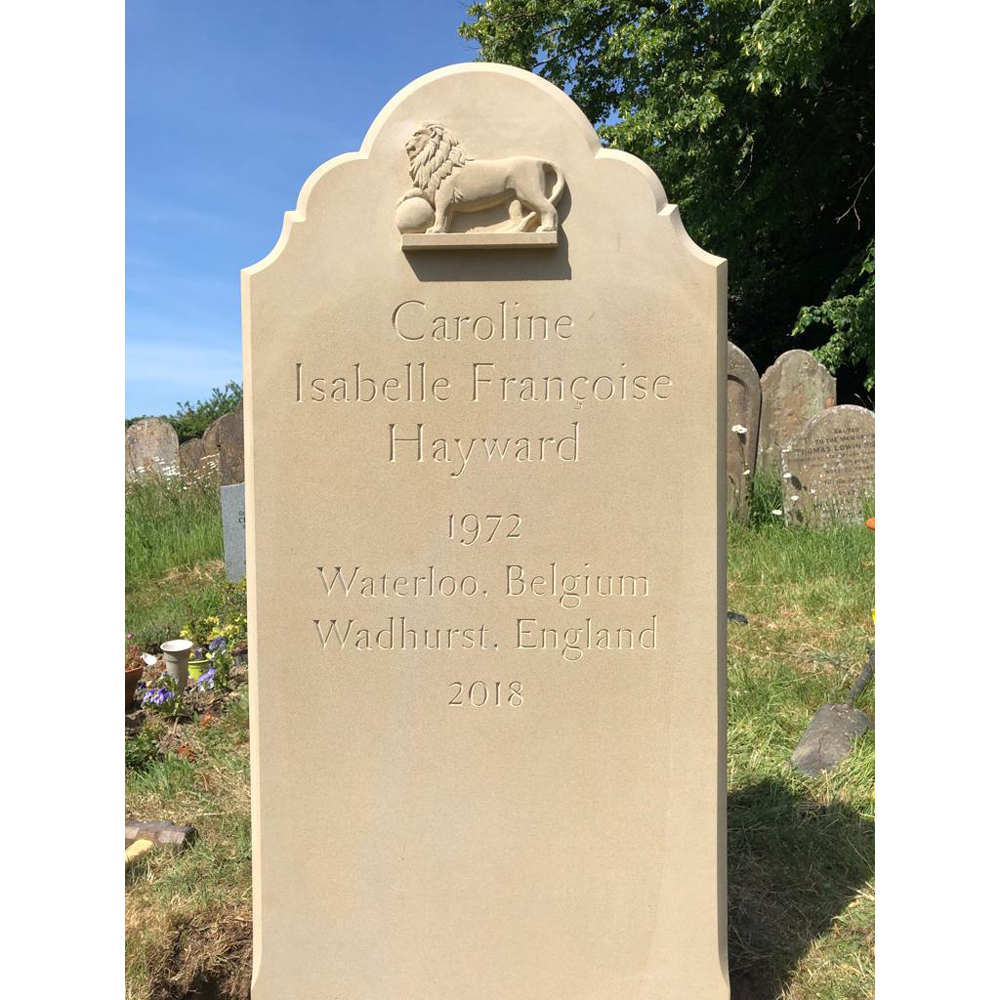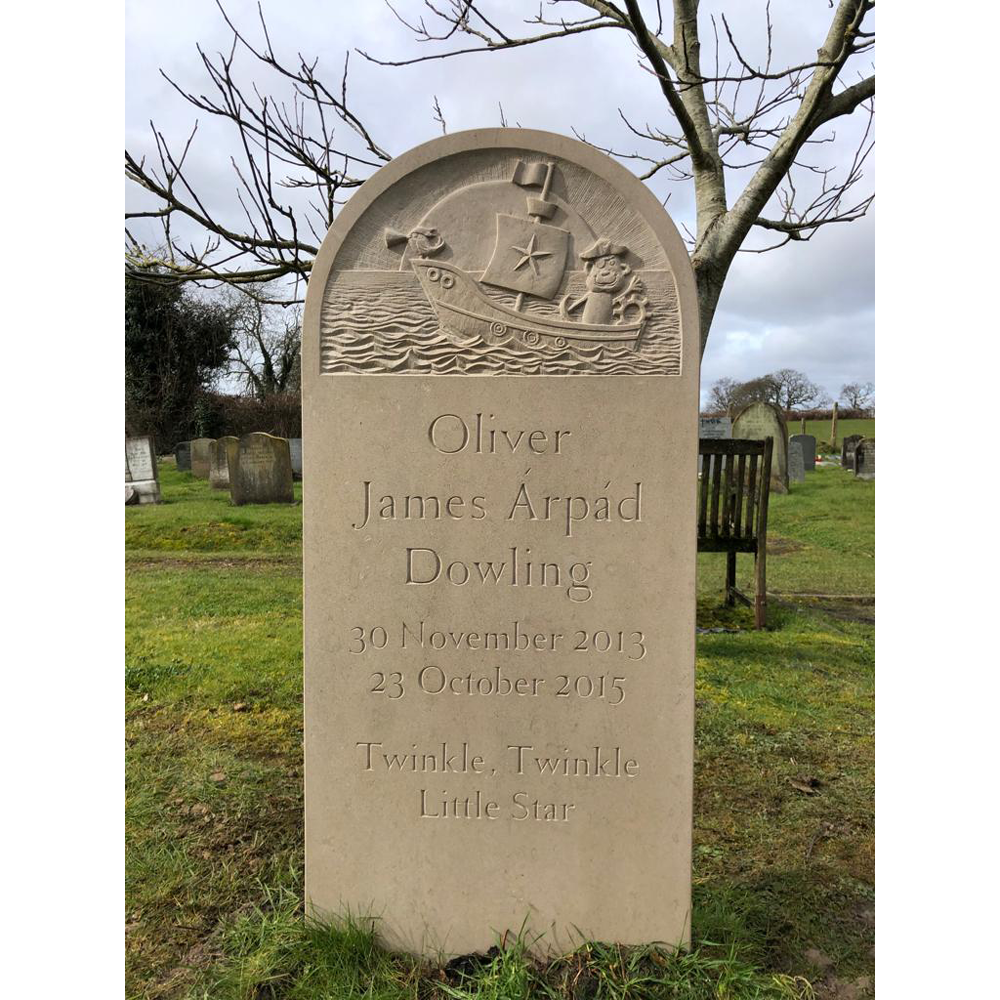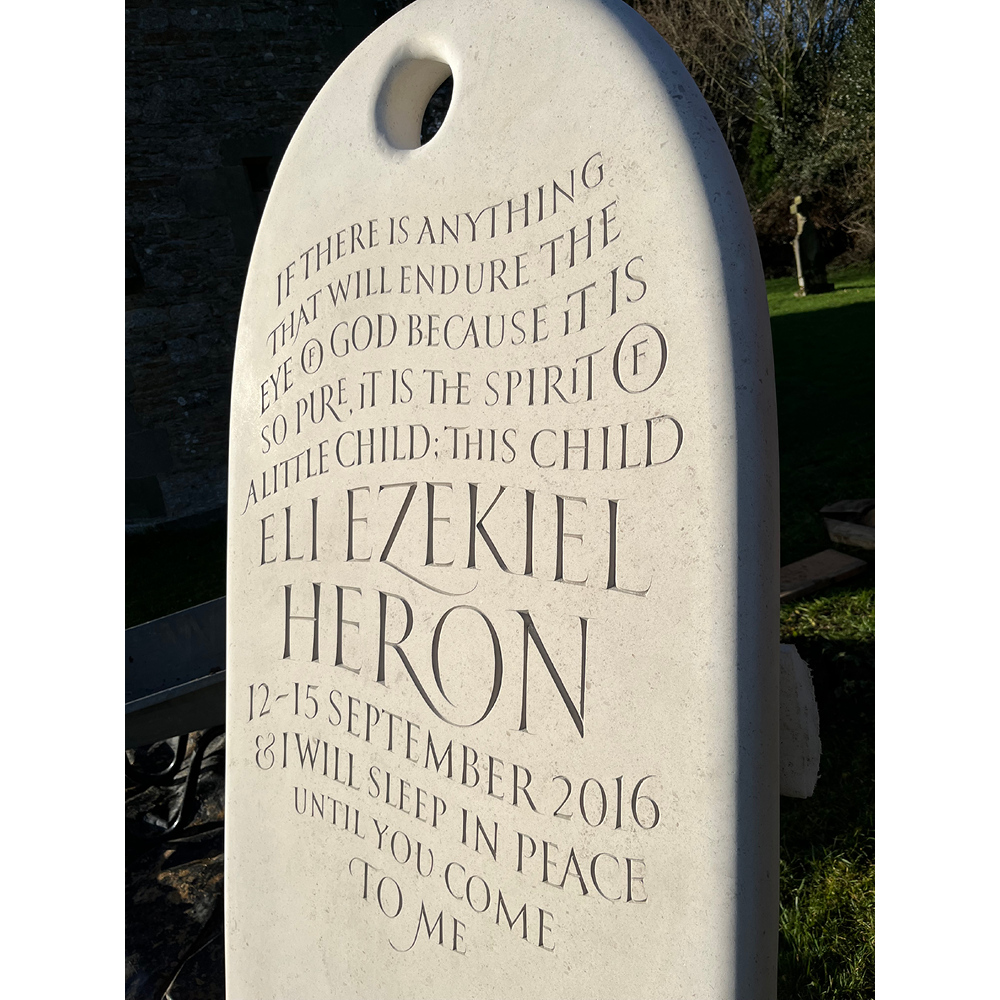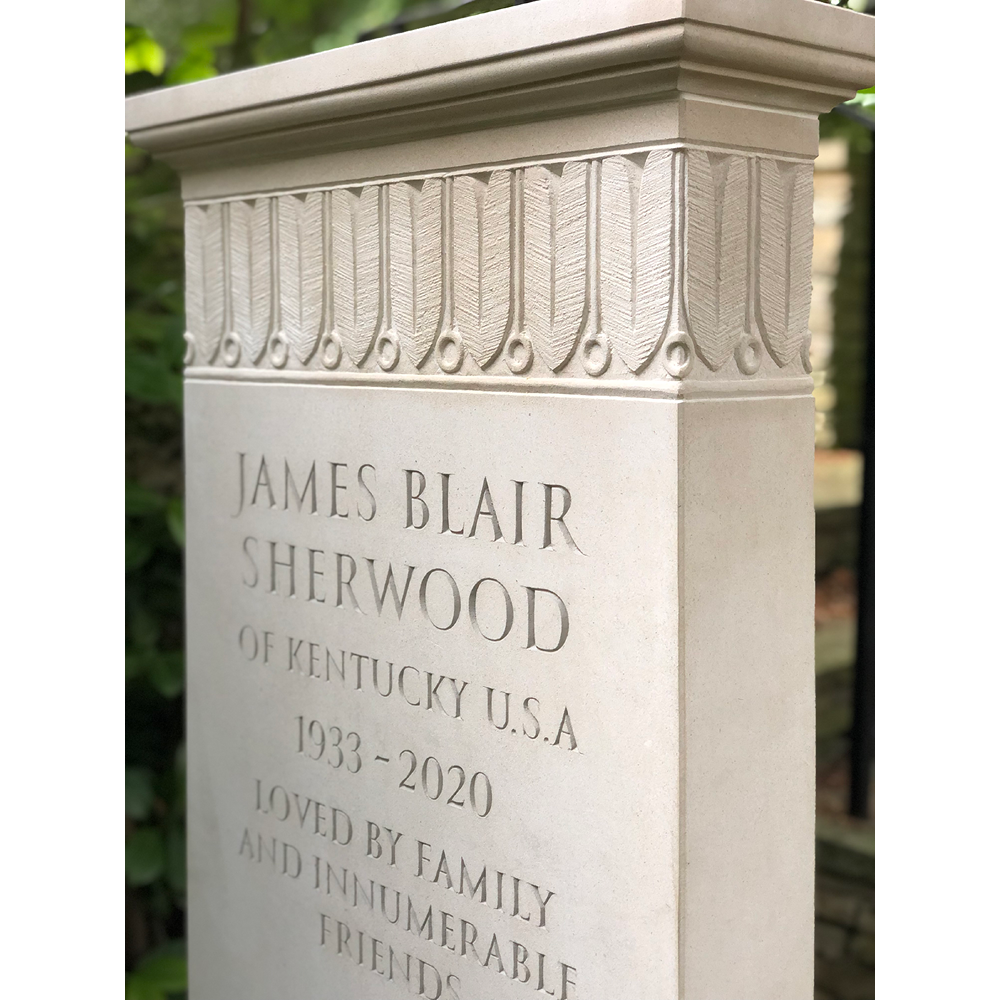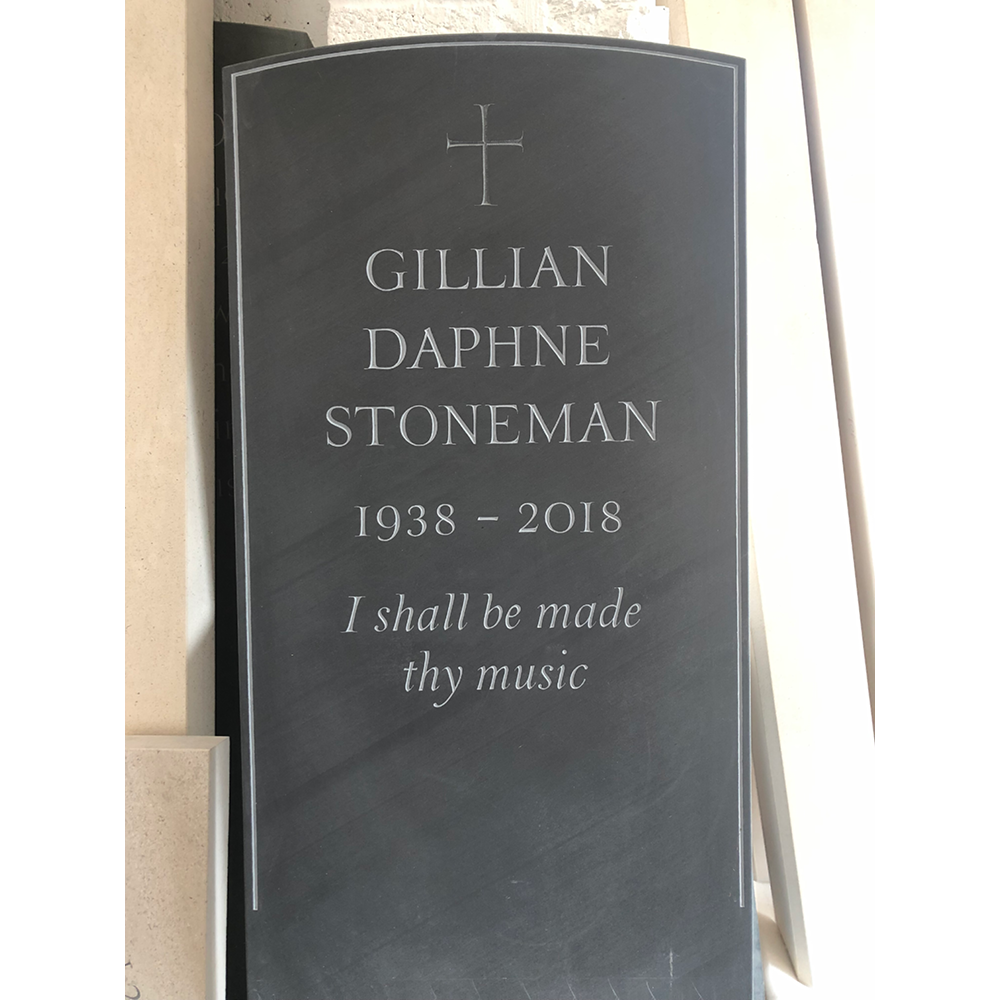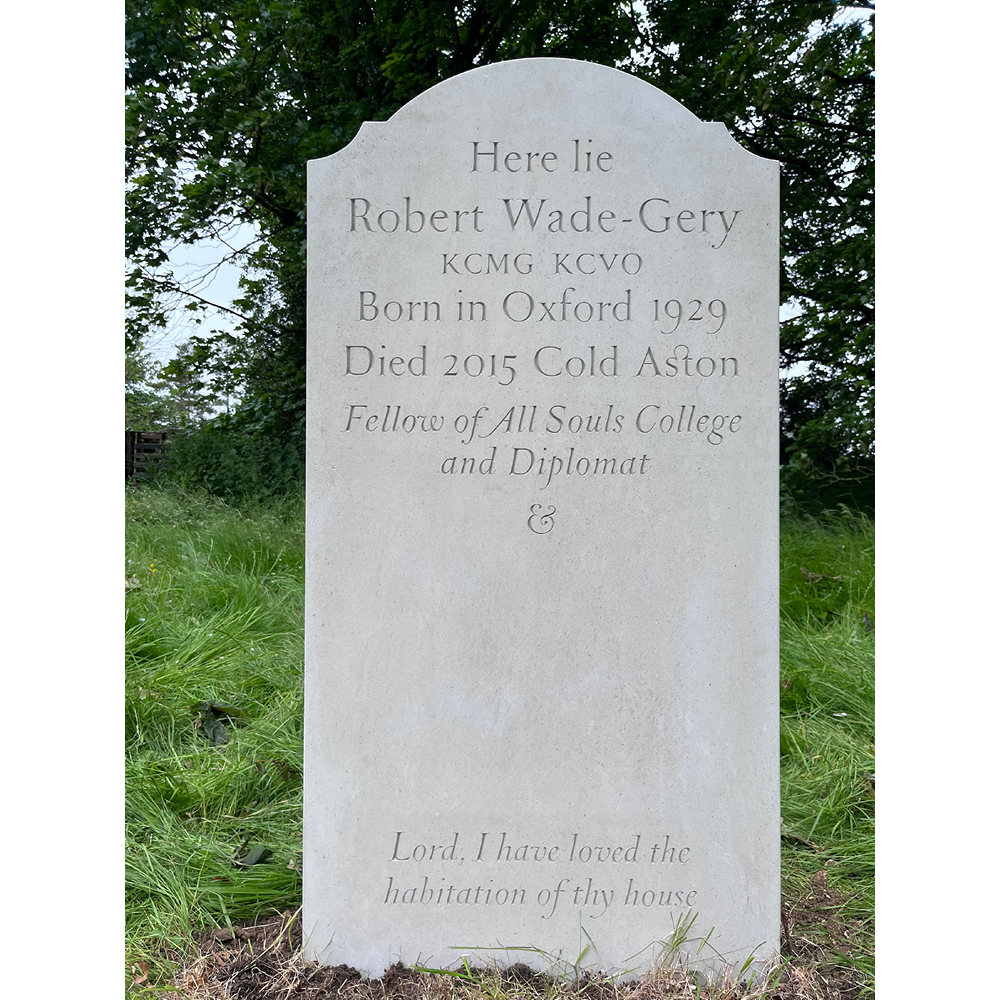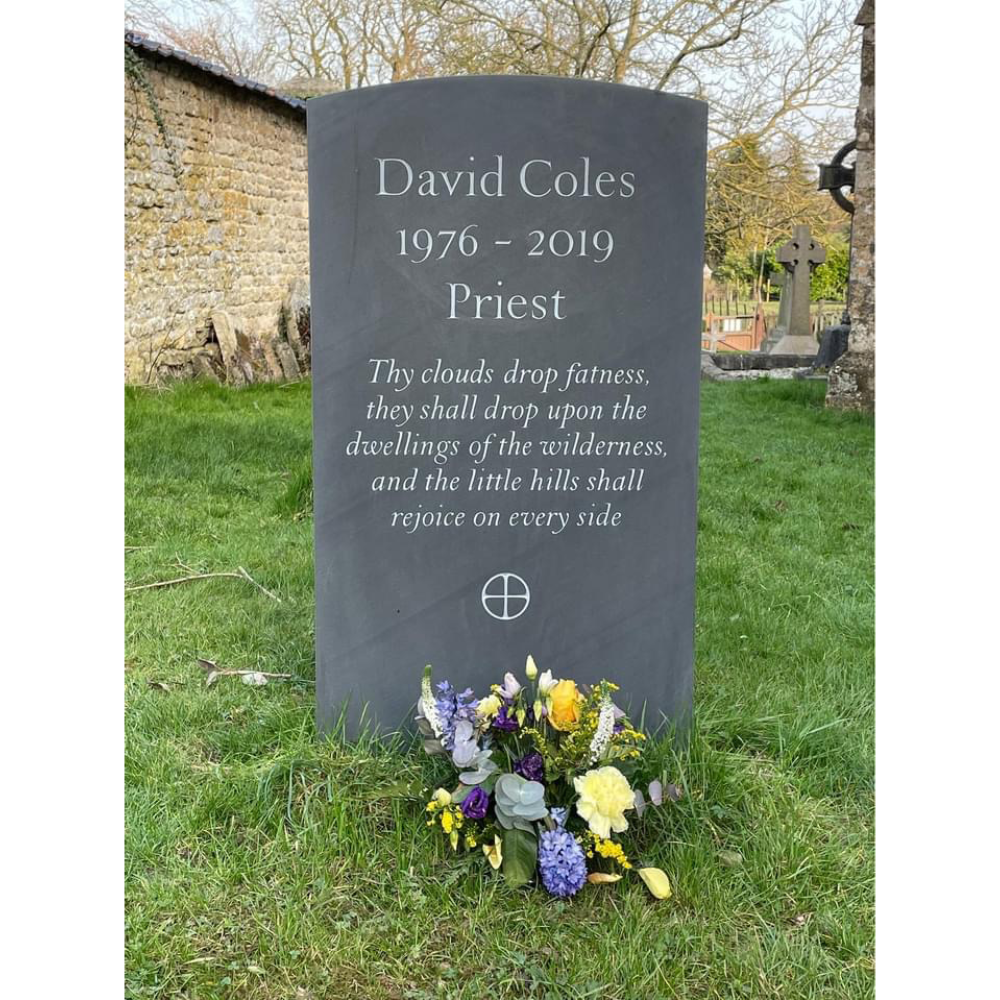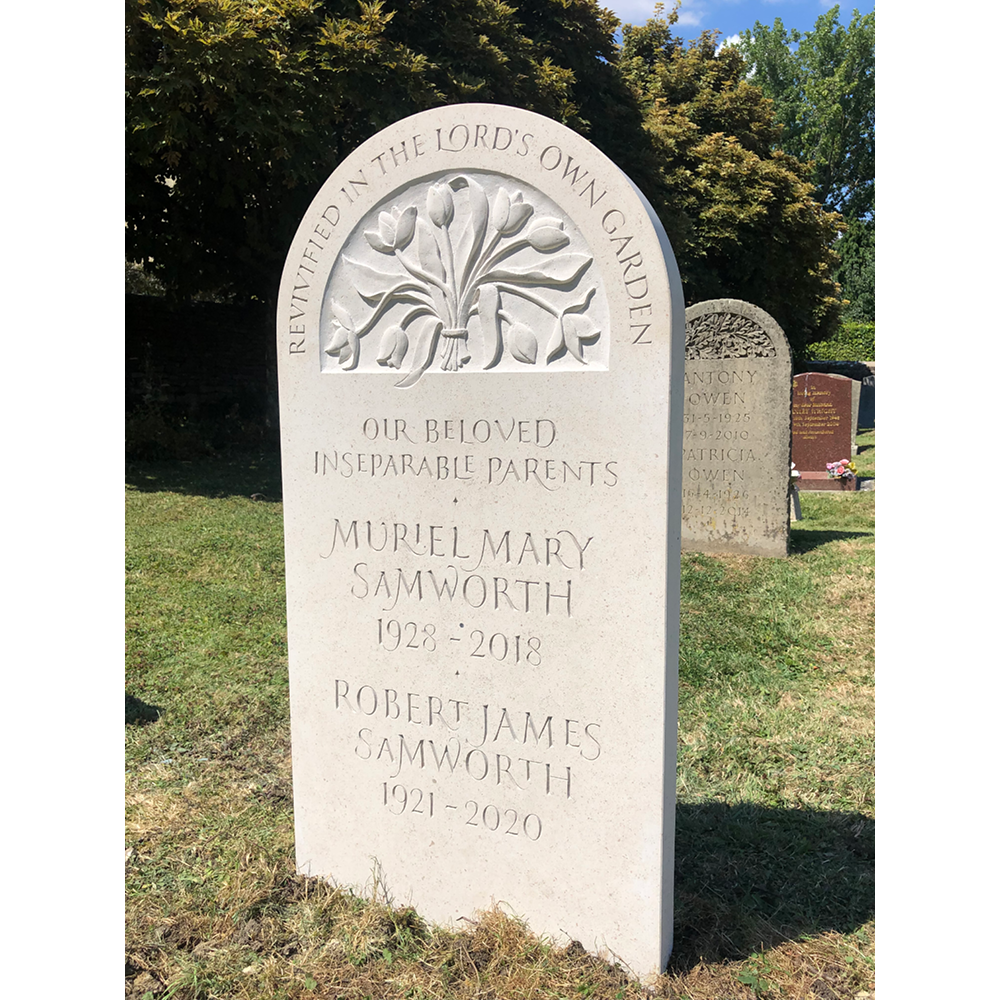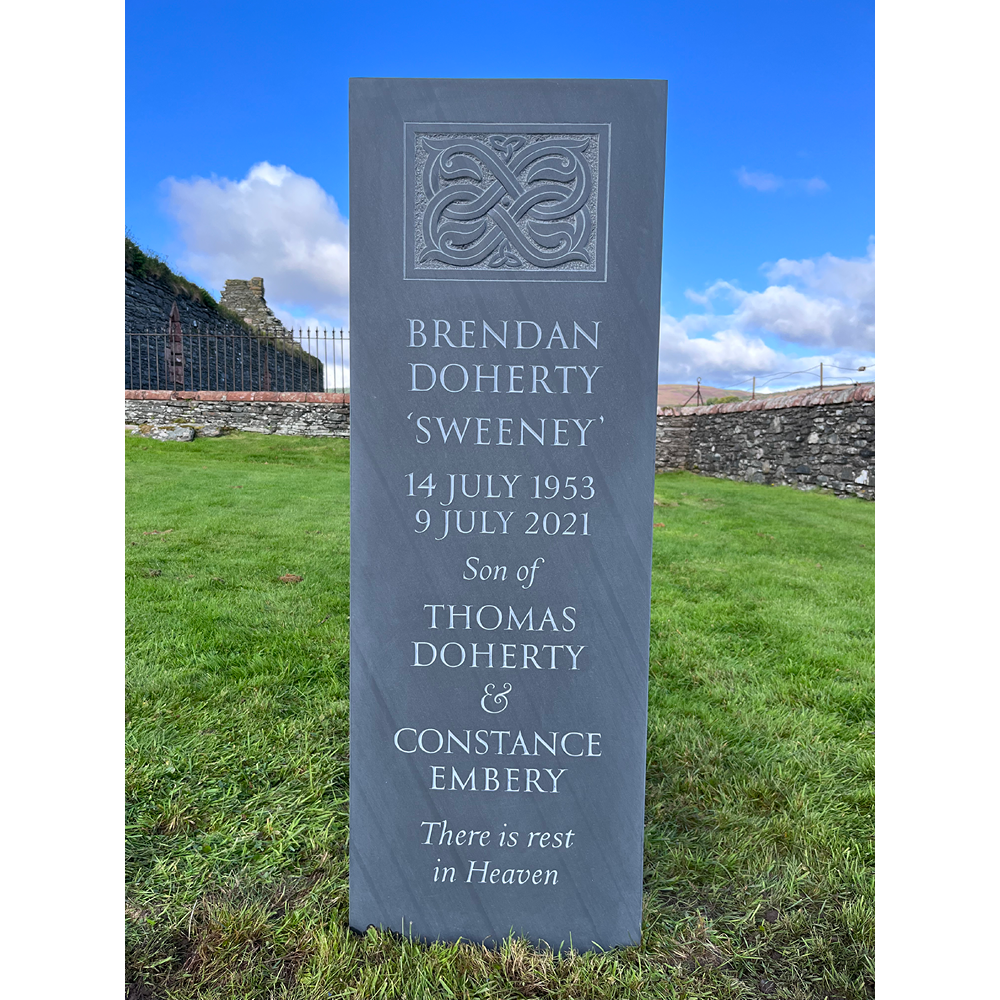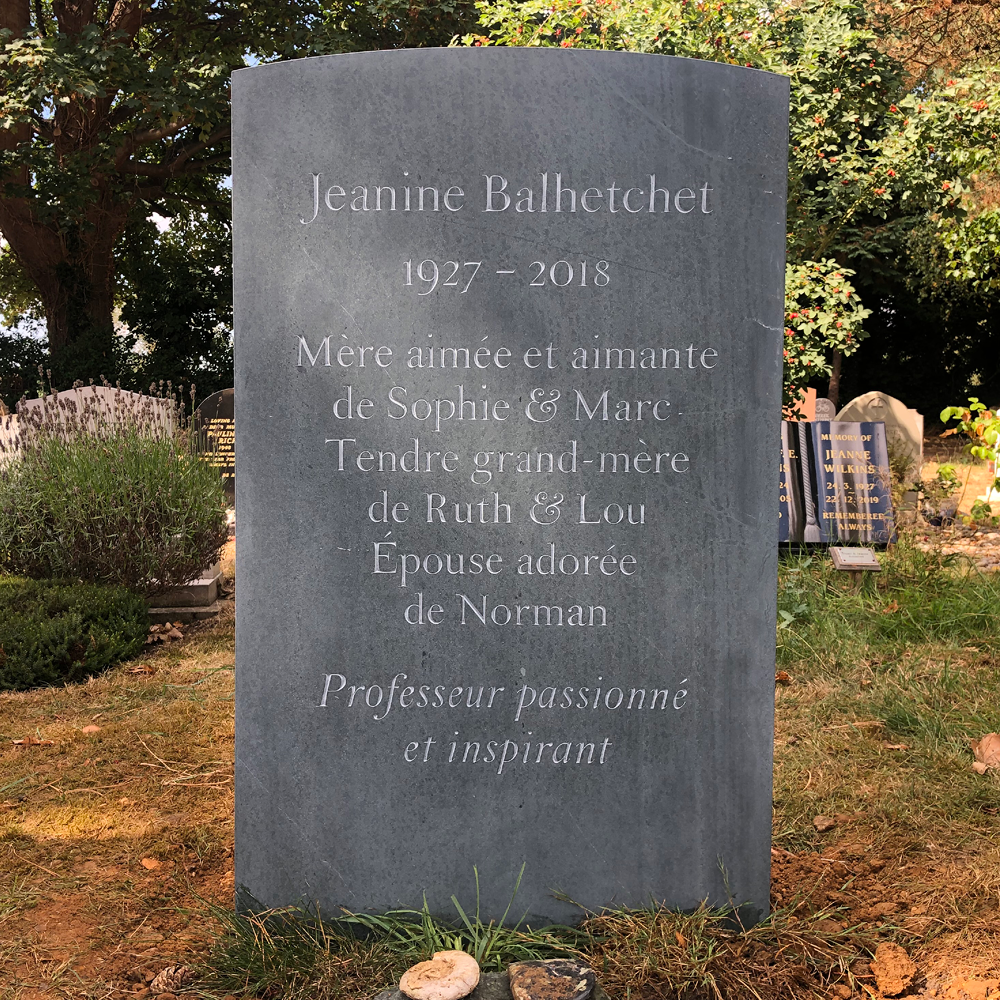
I set up stoneletters over 20 years ago, and my fine memorials can be seen throughout the uk including St Paul’s Cathedral. I listen quietly and offer advice, but I do not hurry, and I am open to ideas. My approach is kind and sympathetic.